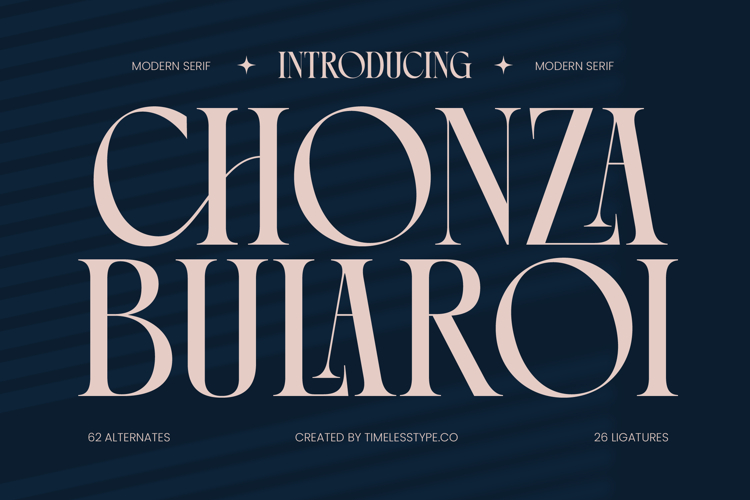
Chonza Bularoi - Modern Serif Font
Elevate your brand aesthetic with Chonza Bularoi - Modern Serif Font, a typeface engineered for enduring elegance and impactful presence. Its design features a captivating balance of high-contrast strokes and refined serifs, exuding an air of understated luxury and contemporary sophistication. This modern serif instantly commands attention, making it an exceptional choice for conveying prestige and refined taste across any visual medium.
Unlock unparalleled creative possibilities with the rich versatility embedded in Chonza Bularoi - Modern Serif Font. Boasting an impressive collection of 62 alternates and 26 ligatures, this font empowers designers to craft truly unique and expressive typographic compositions. These extensive stylistic sets provide the flexibility needed to personalize every headline and logotype, ensuring your message stands out with distinctive flair.
Expand your design reach globally, ensuring your message resonates across diverse audiences. With its extensive multilingual support, Chonza Bularoi - Modern Serif Font adapts seamlessly across global markets, making it incredibly versatile for international projects. This comprehensive language coverage guarantees that your sophisticated branding maintains its integrity and impact, no matter where it is presented.